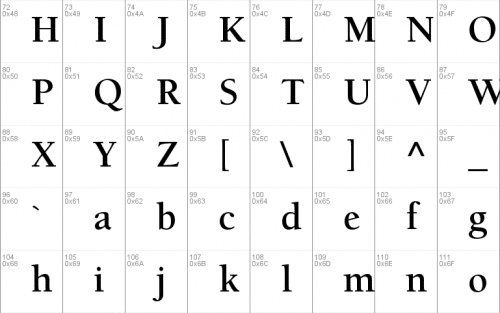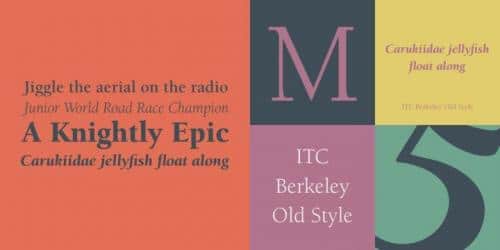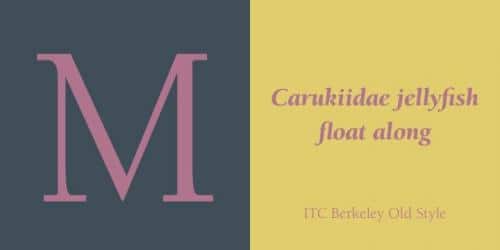
The ITC Berkeley Old Style® font family was created in 1983 as a revival of Fredric Goudy’s custom California Old Style™ typeface, which was originally created specifically for the University of California Press at Berkley. It is a serif font with unusually elongated descenders and a uniquely light style.
- Designer: Frederic Goudy, Tony Stan